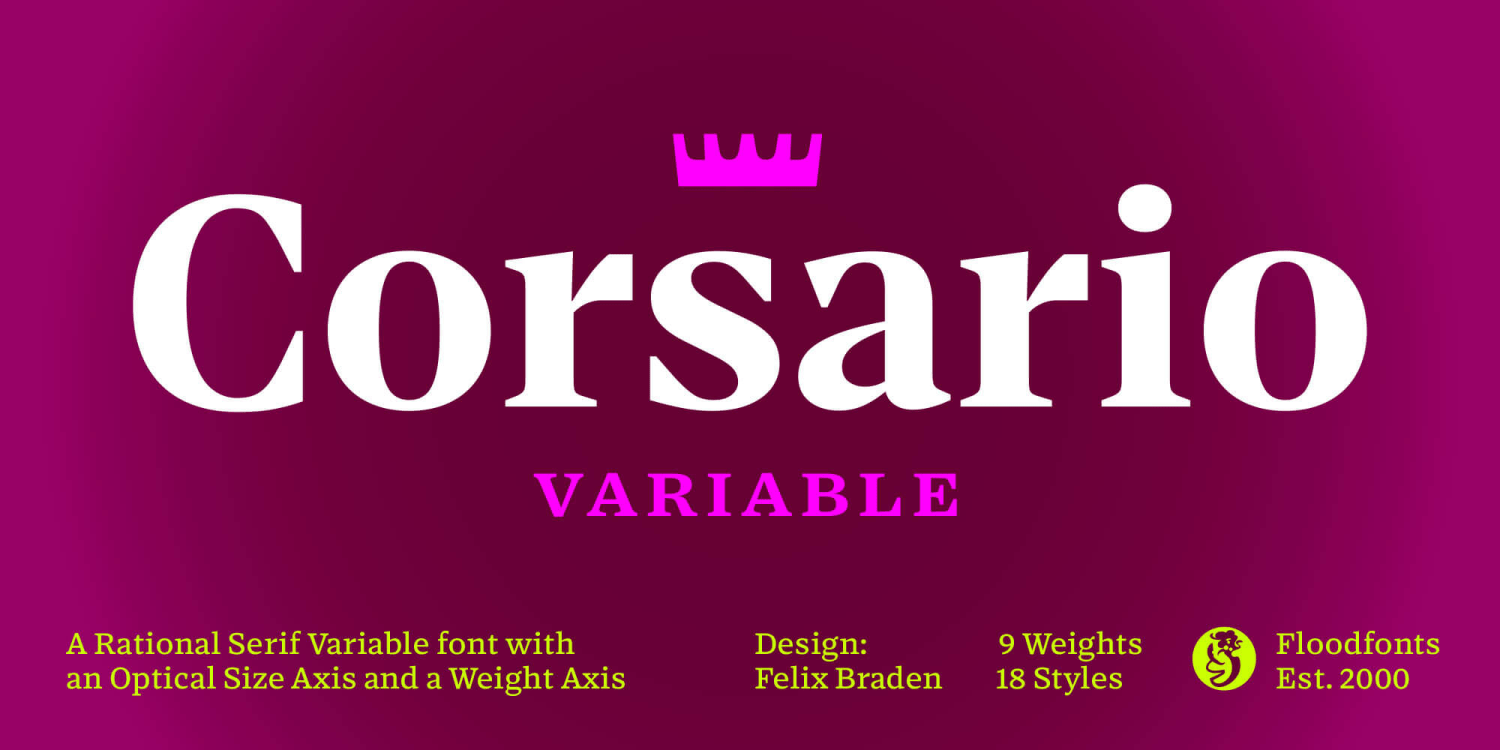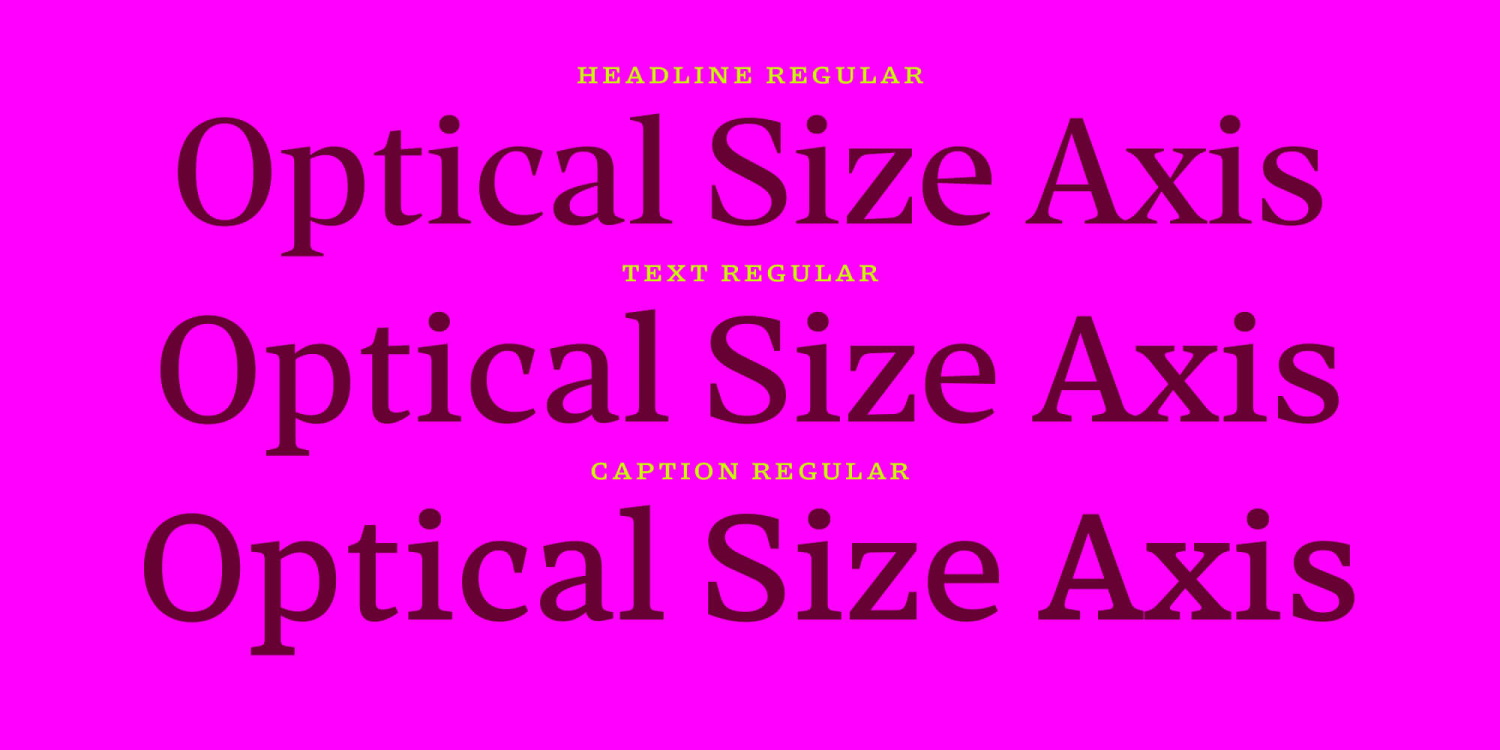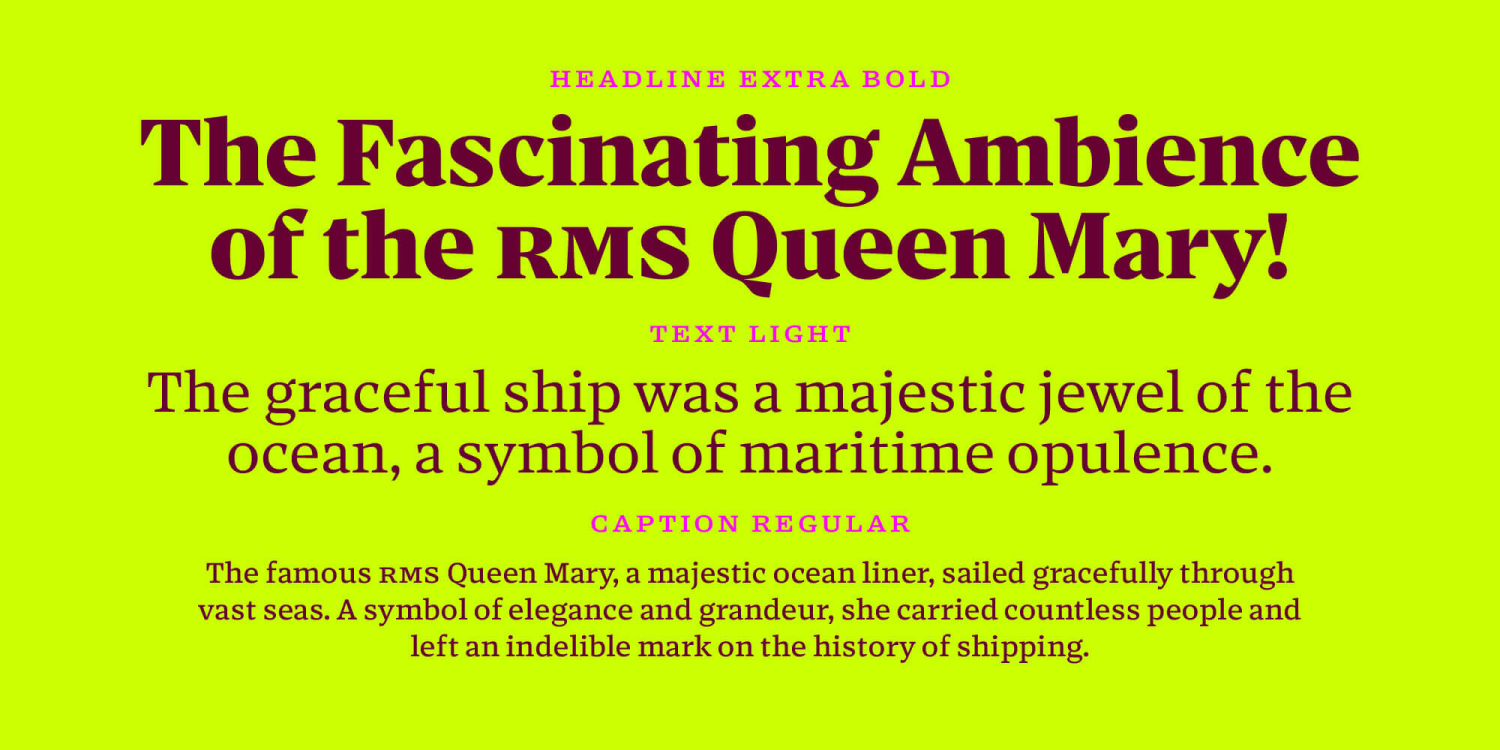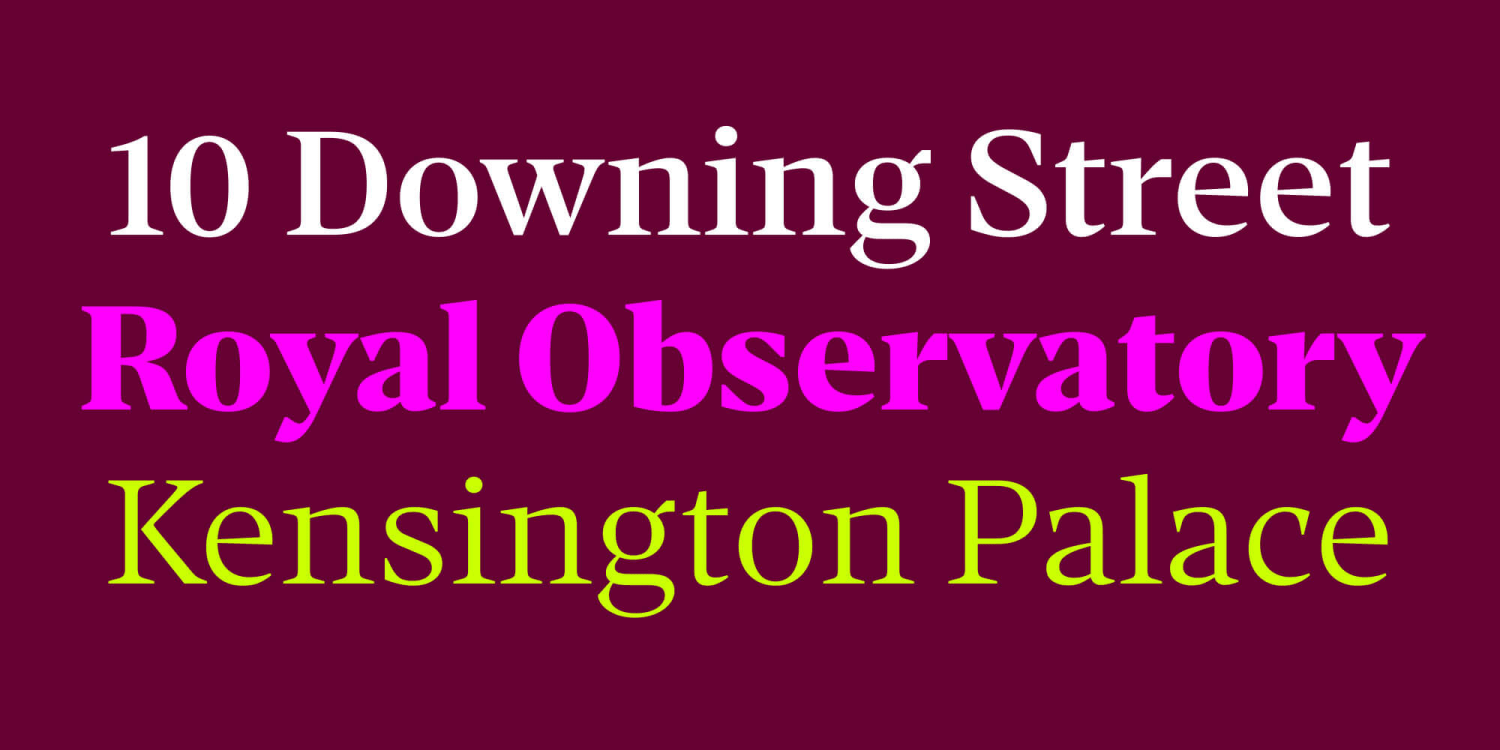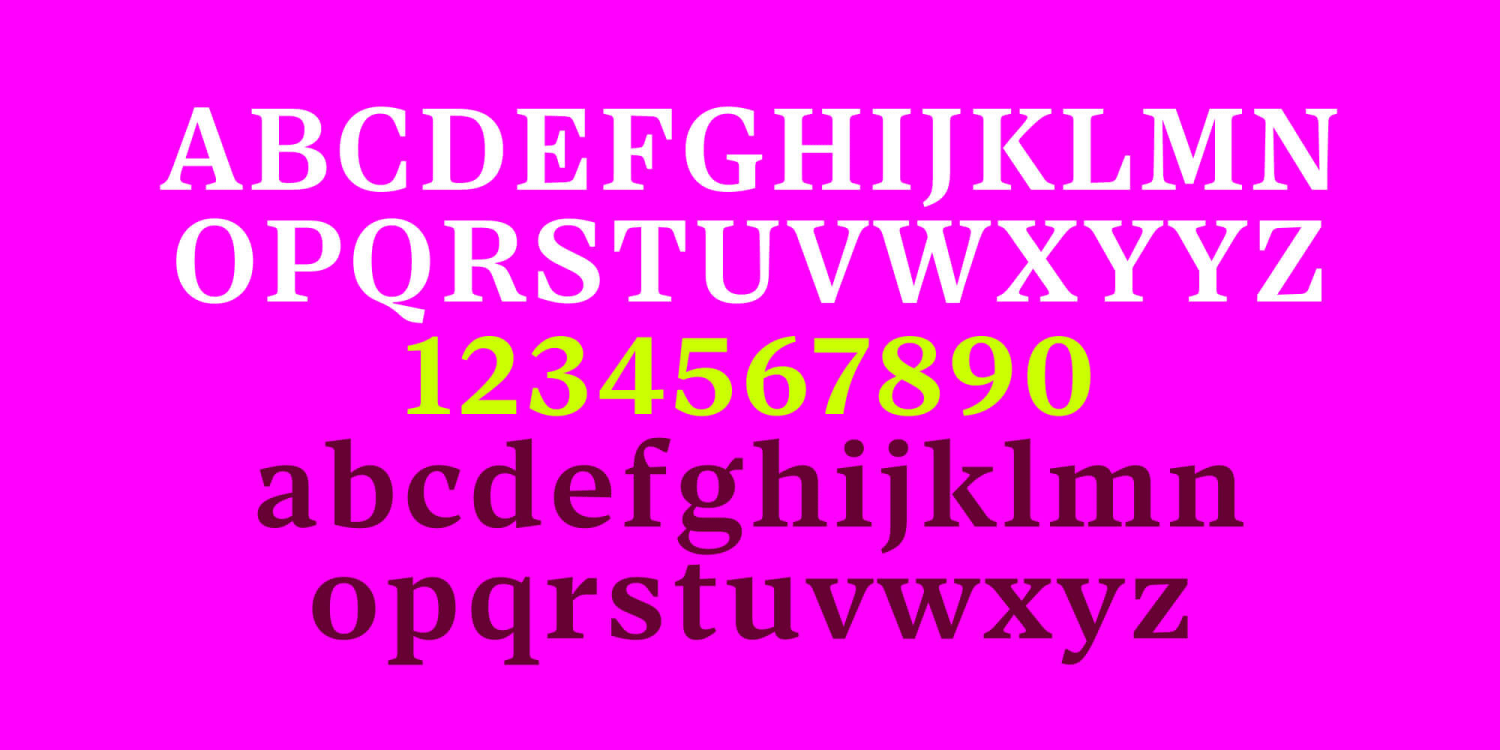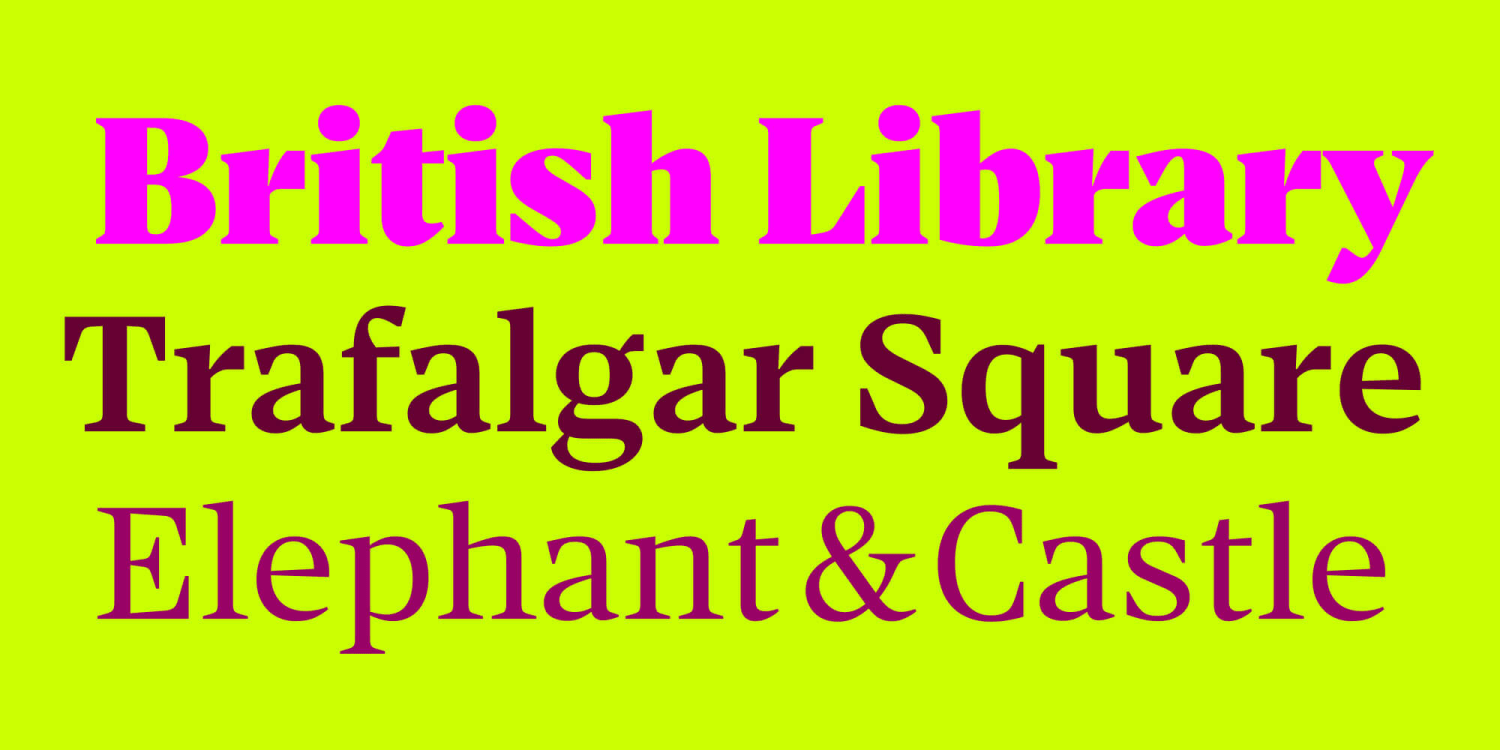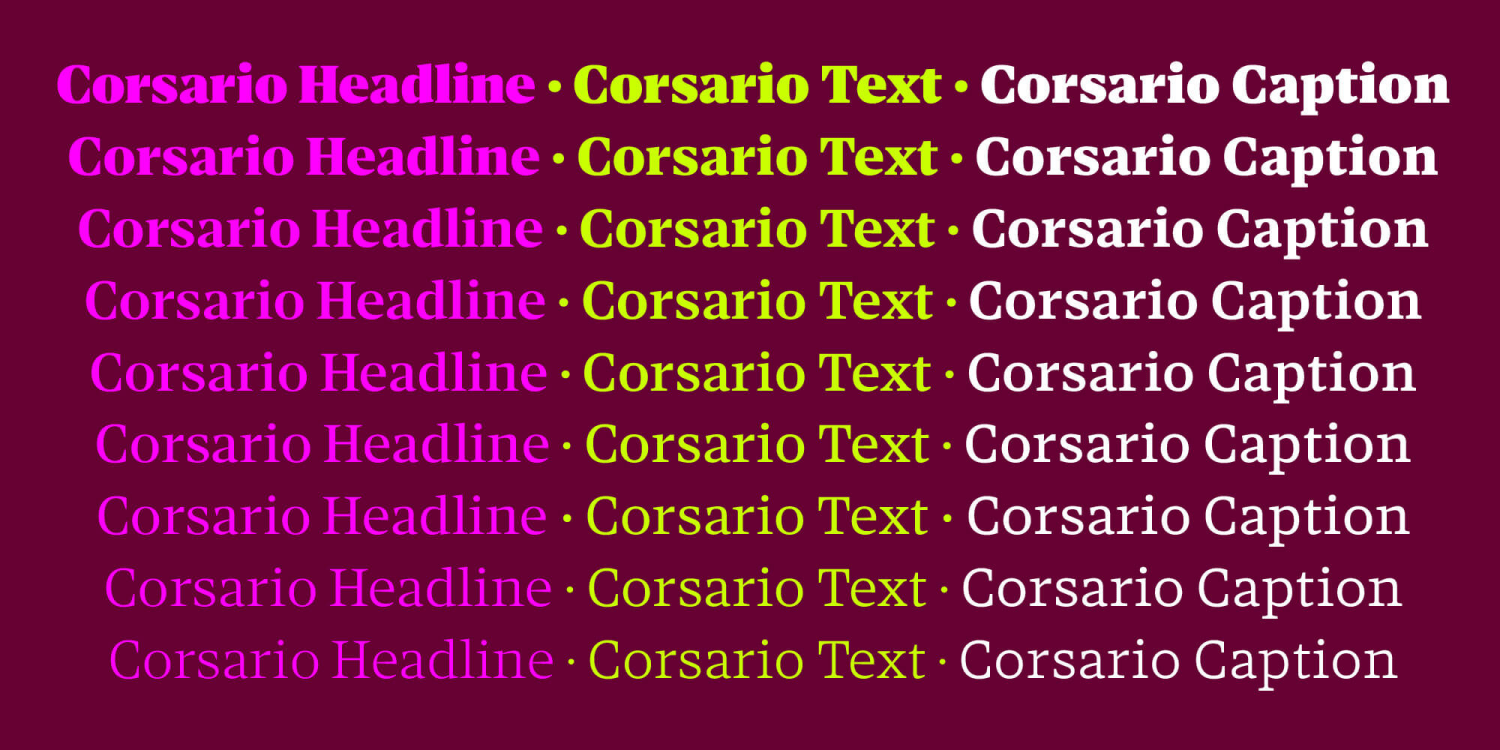
Corsario Variable
Font Family by Floodfonts
Corsario is a variable font family with an optical size axis and a weight axis, tailor-made for the demands of magazines and editorial design, offering a unique blend of flexibility and style.
The family is available as two variable fonts — Upright and Italic — featuring nine weights, and three optical sizes for exceptional typographic flexibility. Together with their matching italics, they provide a total of 54 styles.
Designed as a workhorse, Corsario excels in versatility and strikes a harmonious balance between visual appeal and practicality. Whether you‘re setting striking headlines or immersing readers in extensive editorial content, Corsario guarantees an exceptional reading experience, making it the perfect choice for magazines and editorial design.
Inspired by the timeless allure of British transitional style, Corsario marries classical sophistication with a modern edge. The sharp, prominent serifs make a bold statement, ensuring your text commands attention while exuding an unmistakable elegance.
More About Corsario Variable
Corsario Variable is a serif variable font family from Floodfonts designed for magazines and editorial design. The product data describes it as a workhorse family with an optical size axis and a weight axis, available as Upright and Italic variable fonts.
The family combines sharp, prominent serifs with a classical, transitional-inspired character and a modern edge. The specimen images show strong headline settings, readable text settings, and distinct caption sizing, emphasizing its range across editorial hierarchy.
What is Corsario Variable used for?
Corsario Variable is intended for magazine and editorial design, including headlines, body text, captions, publishing layouts, newspapers, newsletters, books, branding, packaging, posters, logos, and other display or text-driven design work indicated by the product description, categories, tags, and specimen images.
Key Features
• Variable serif font family from Floodfonts
• Includes two variable fonts: Corsario Variable Upright and Corsario Variable Italic
• Built with a weight axis and an optical size axis
• Described as offering nine weights, three optical sizes, and 54 total styles with matching italics
• Glyph counts listed as 765 for Upright and 766 for Italic
• Visual style features sharp, prominent serifs and high-contrast editorial typography
• Specimen images show headline, text, and caption settings
Corsario Variable FAQs
What type of font is Corsario Variable?
Corsario Variable is a variable serif font family.
Who publishes Corsario Variable?
Corsario Variable is from Floodfonts.
How many variable fonts are included?
The family includes two variable fonts: Upright and Italic.
What axes does Corsario Variable include?
The product description lists an optical size axis and a weight axis.
How many styles does Corsario Variable provide?
The product description states that the family provides 54 styles.
What design work is Corsario Variable made for?
It is described as tailor-made for magazines and editorial design, including headlines and extended reading text.